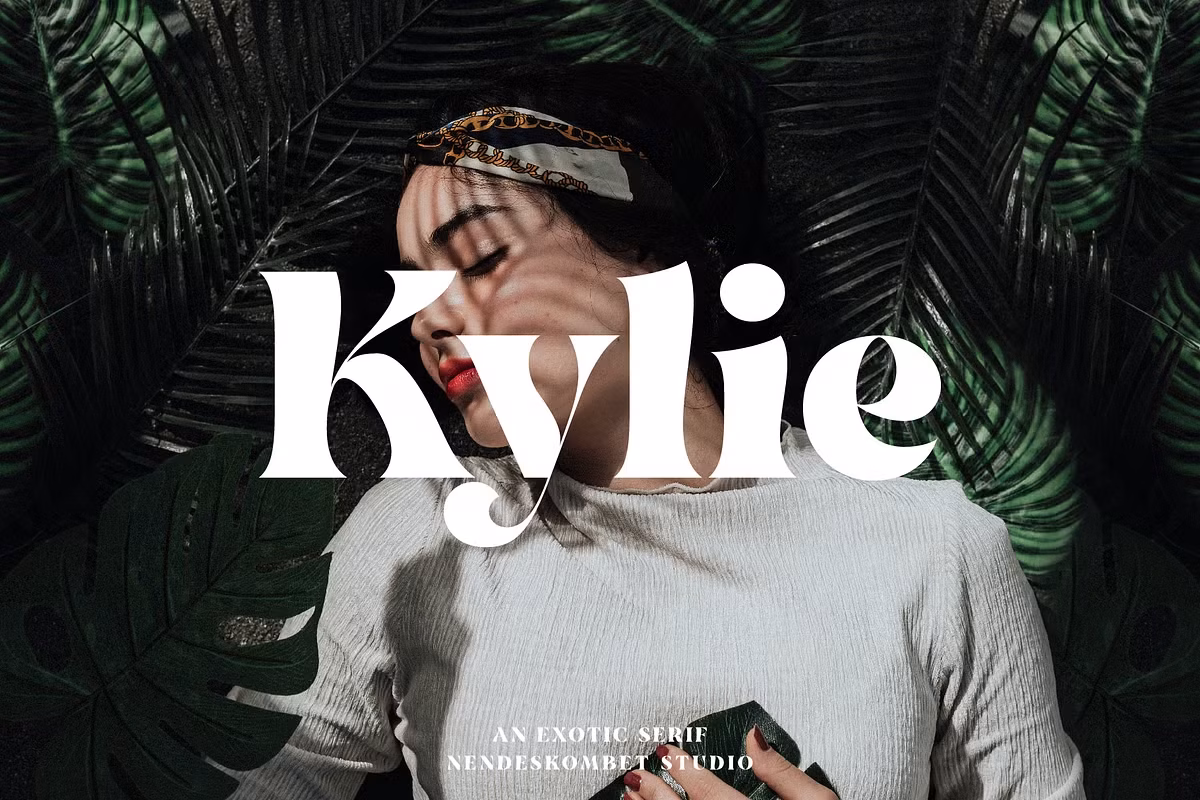
Kylie - Exotic Serif Font Free Download is a stylish and sophisticated typeface that combines bold serifs with an exotic flair. Perfect for high-end branding, logos, fashion, and editorial design, Kylie offers a unique and refined aesthetic with its distinct letterforms. Its elegant curves and sharp details make it an ideal choice for projects that require both luxury and creativity.